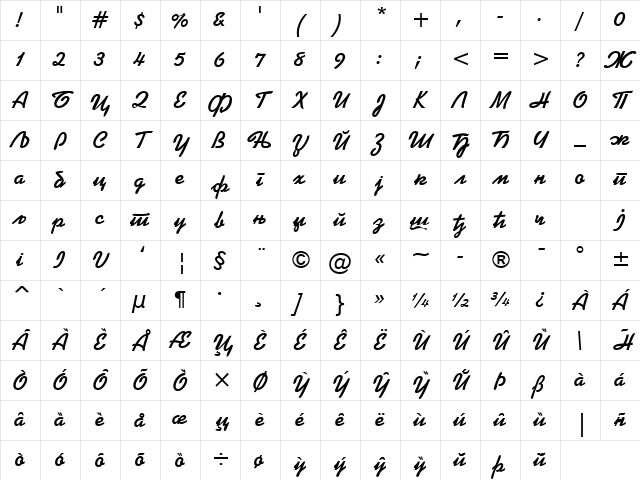
Cir Koala Bold Free Font
Cir Koala Bold
Complete Cir Koala Bold glyph index. Displaying only characters natively supported by Cir Koala Bold font.
Design Context for Cir Koala
Cir Koala is a composed and adaptable typeface that performs quietly and consistently across a wide range of design contexts. Its bold stroke weight gives it real presence on the page.